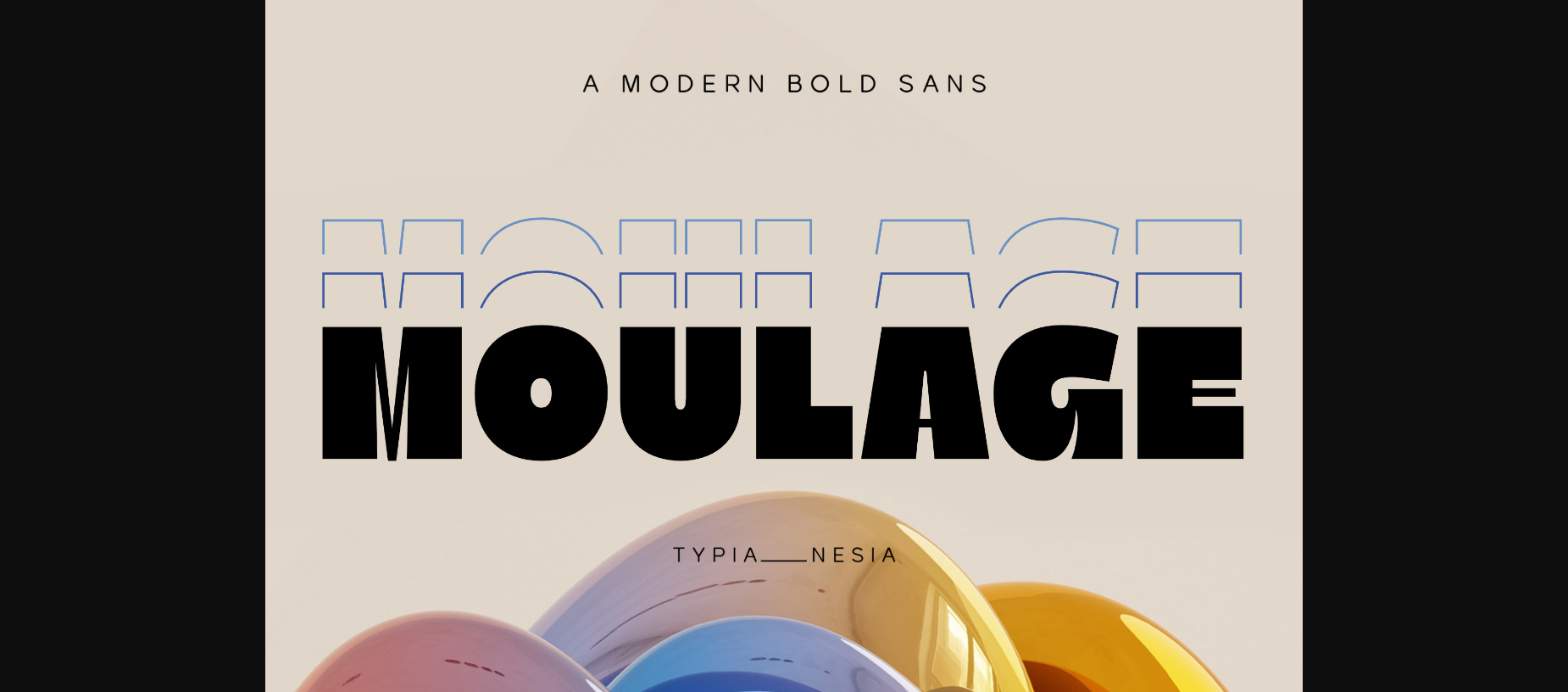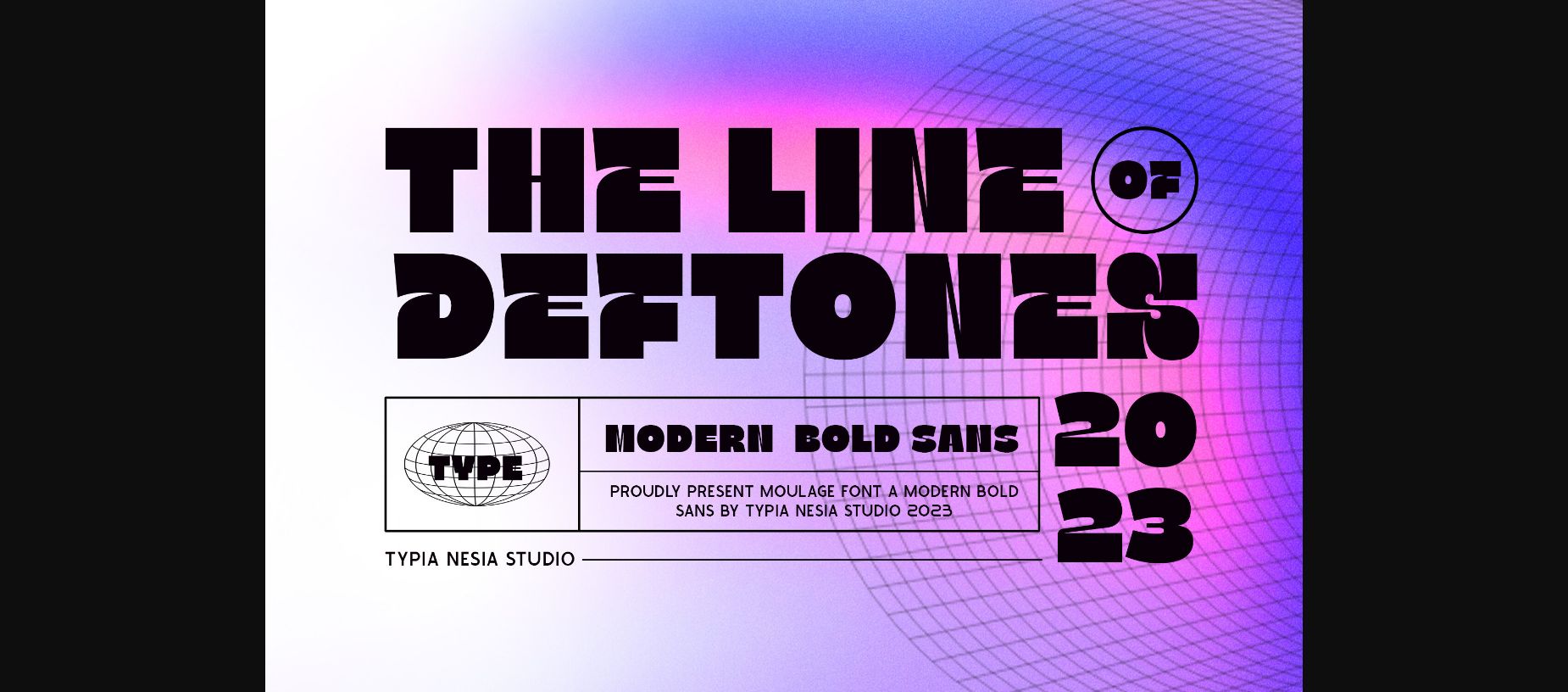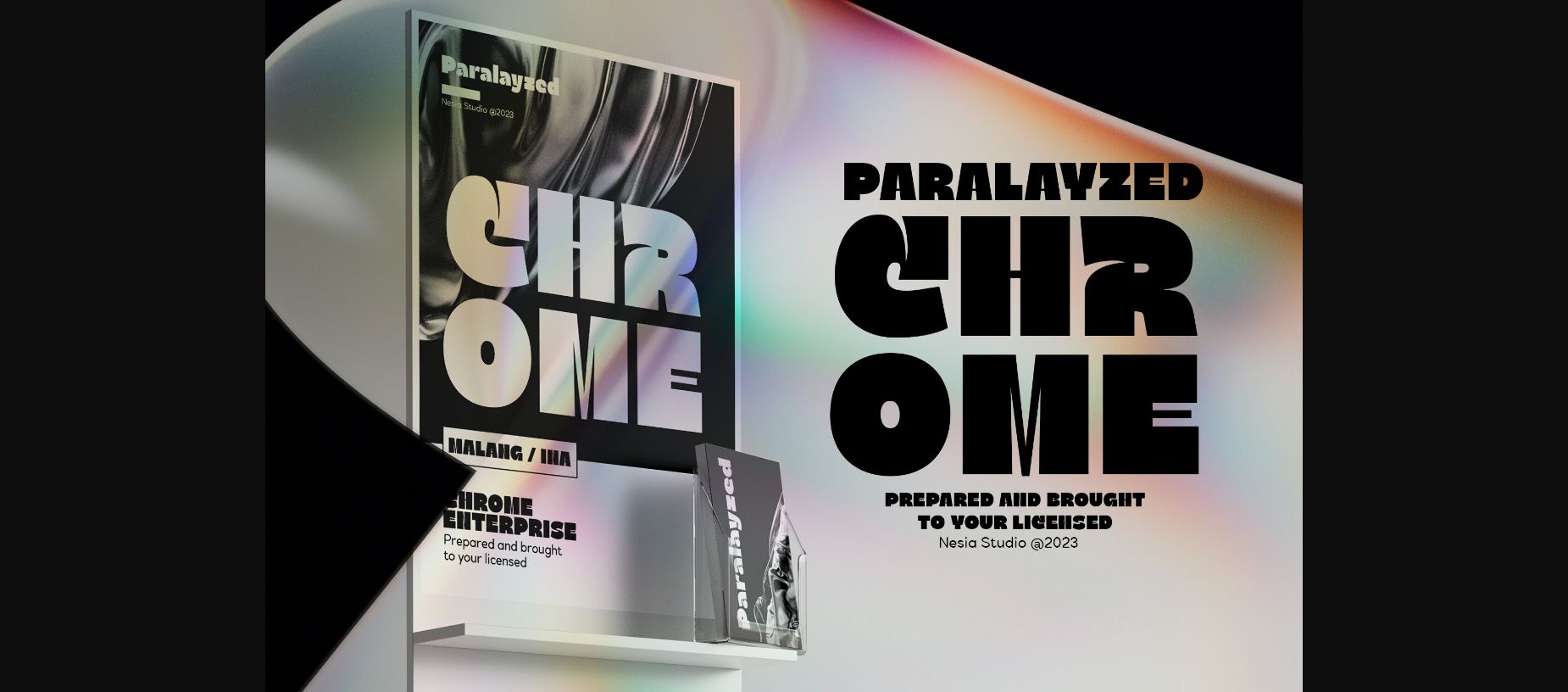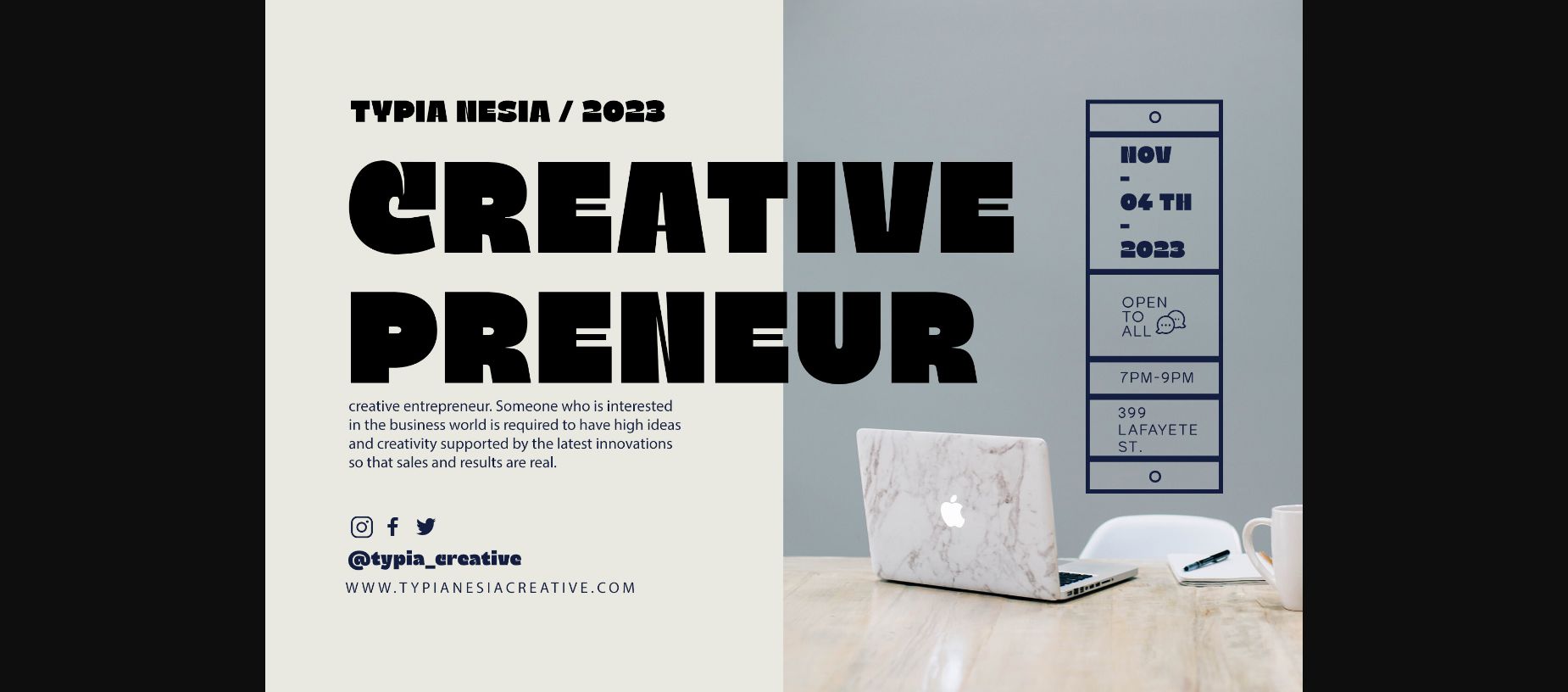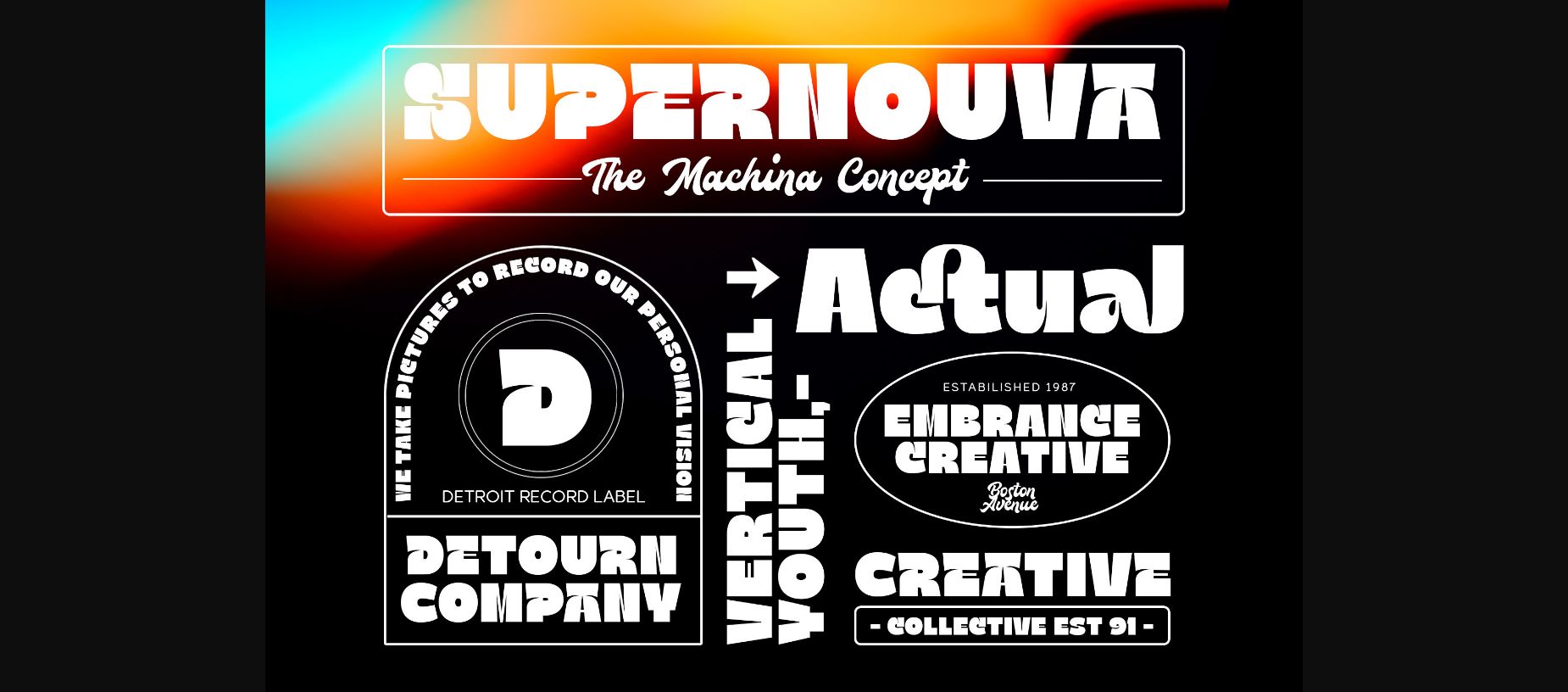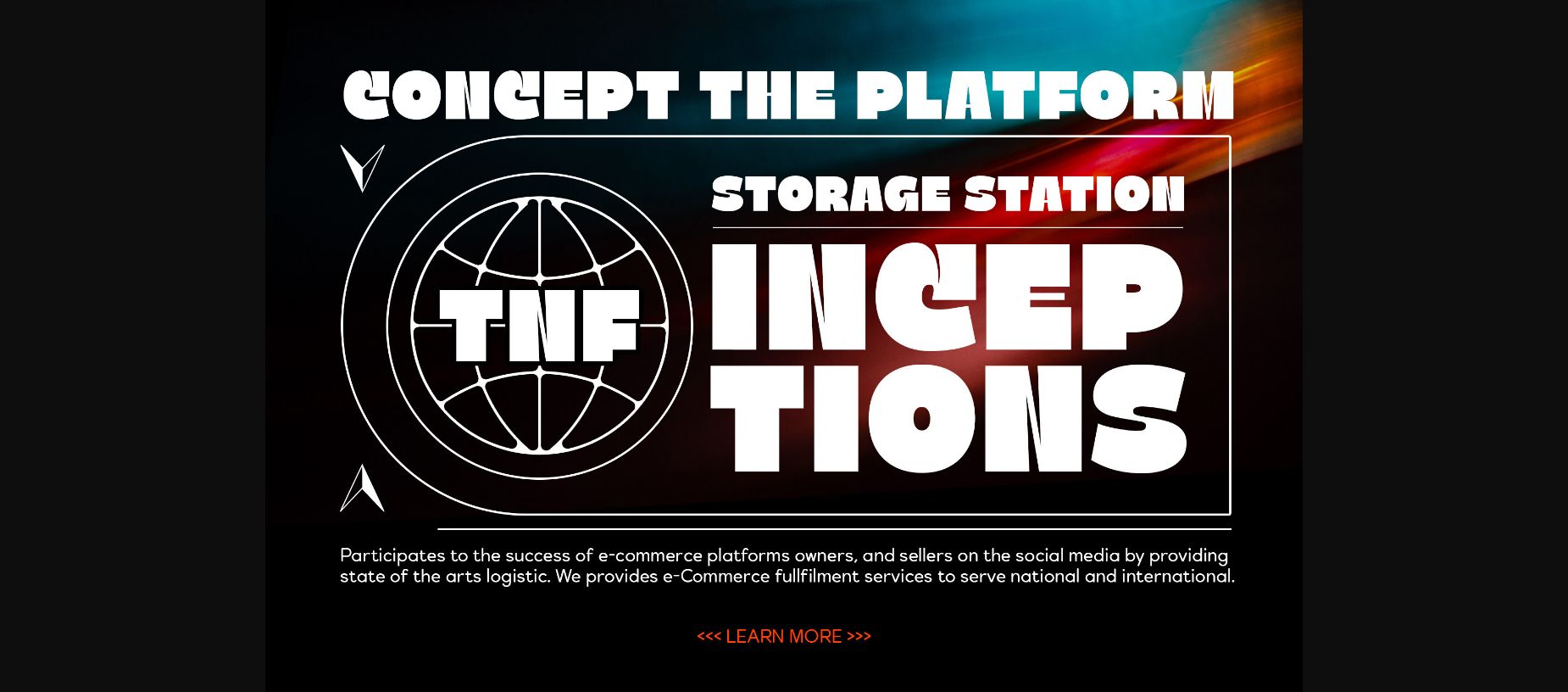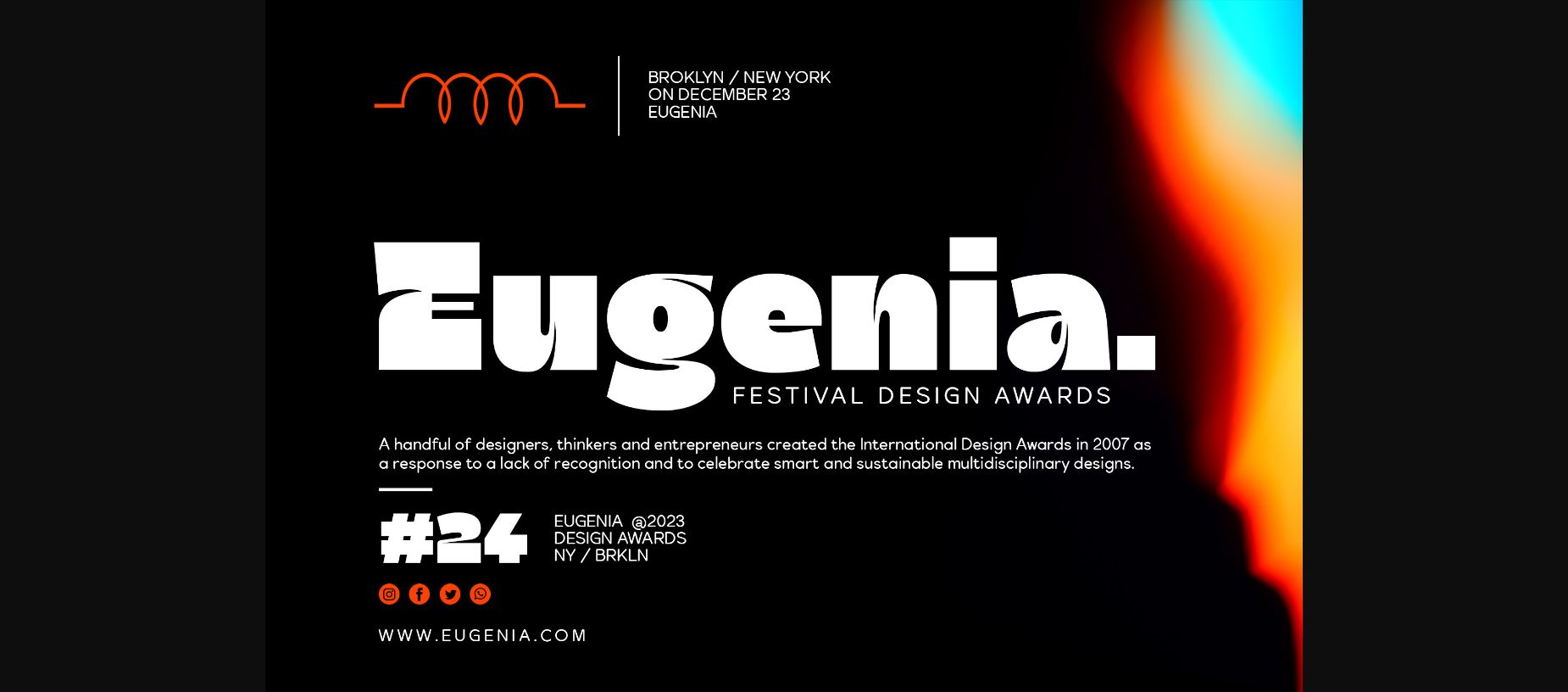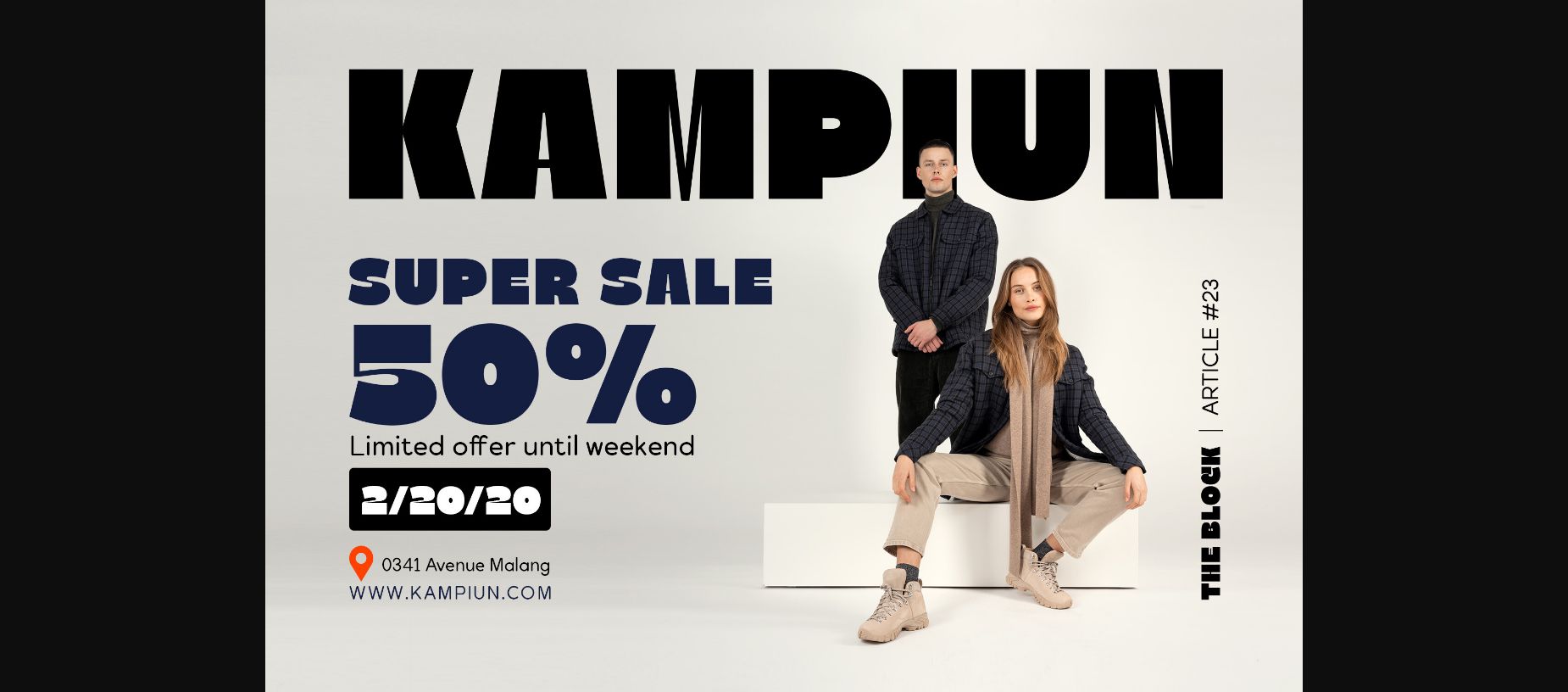
Moulage Font
About Moulage Font
Moulage Font is a stylish, modern and bold sans-serif typeface. With its bold appearance, it is ideal for creating eye-catching headlines and graphic designs. This typeface is suitable for various design projects such as branding, packaging, advertising, and more. The font has a versatile style that can be used in both web and print applications.